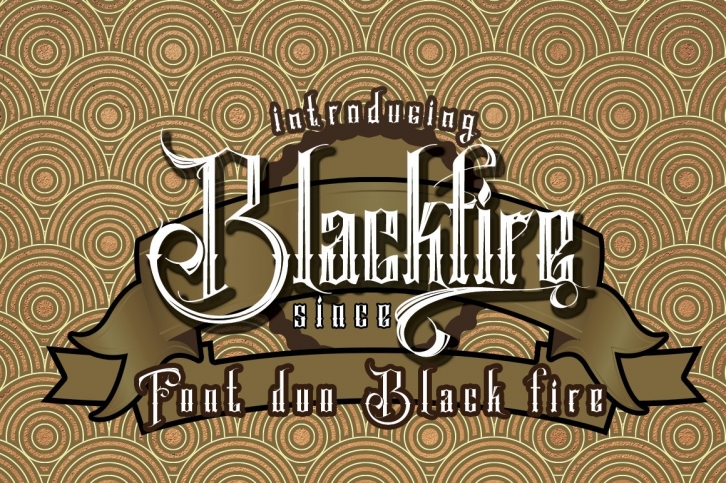
Blackfire is a trendy and unique font with an authentic style. It was designed by baldam and it's a great choice for creative people who need such a font. It was released on November 25, 2018 and the file size is 1.27 MB. Blackfire will add an organic vibe to any design idea!